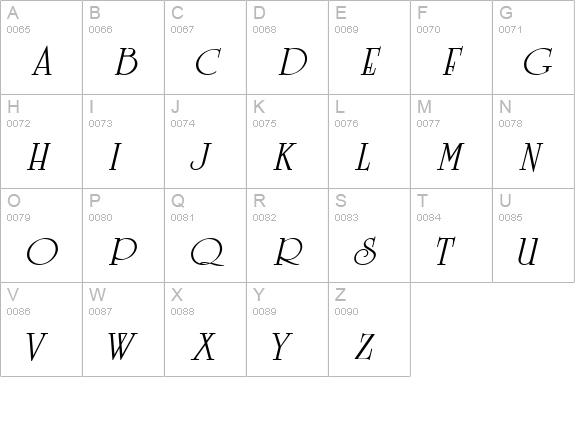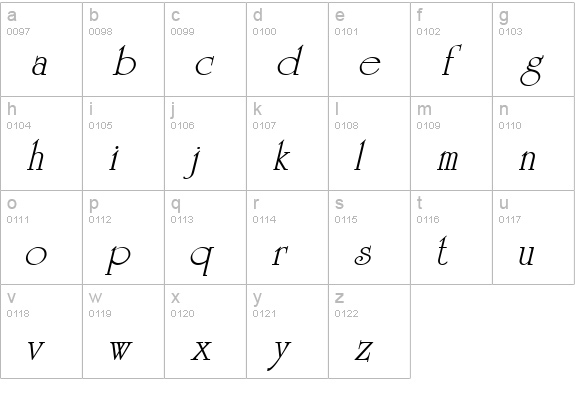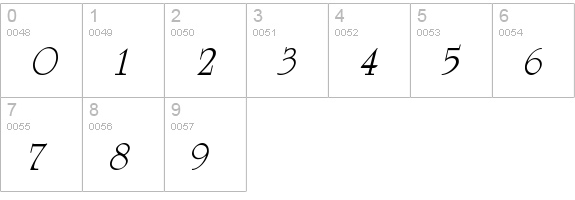
Celtic MN Italic is a distinctive, italic variant in the Celtic typeface family \xE2\x80\x94 well suited to design and typography projects.
Celtic MN Italic font is a stunning and elegant typeface inspired by traditional Celtic designs. Its intricate details and graceful curves make it perfect for adding a touch of sophistication to your projects. Whether you're working on invitations, logos, or any other design, Celtic MN Italic font will surely make a statement. The best part is that Celtic MN Italic font is available for free download at FontsMarket.com. This means you can easily access this beautiful font and use it in your creations without any cost. Don't miss out on the opportunity to enhance your designs with the timeless charm of Celtic MN Italic font, now just a click away for free at FontsMarket.com.